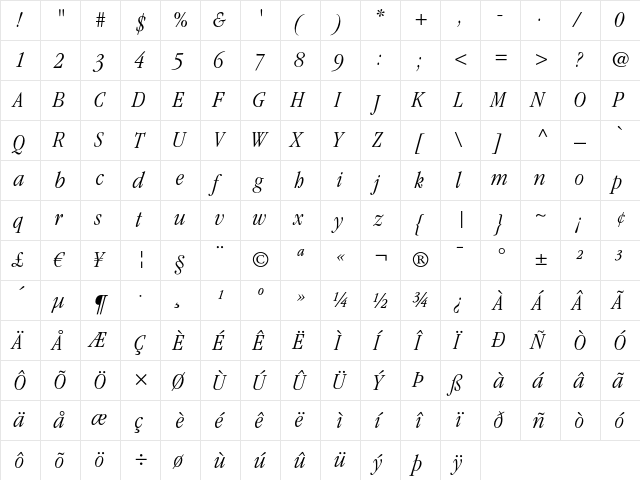
ITC Garamond LT Light Condensed Italic Font Preview
Design Context for ITC Garamond LT Typeface
ITC Garamond LT offers clean, dependable letterforms without strong stylistic allegiance, making it a practical choice for designers who need flexibility. Its italic angle brings a sense of urgency and motion to the letterforms. The delicate stroke weight brings airiness and refinement to layouts. The condensed width makes it efficient for tight spaces without sacrificing legibility.
Pro Tip: Try ITC Garamond LT for annotation and caption copy alongside an upright companion — the contrast in angle creates a dynamic but ordered typographic system.